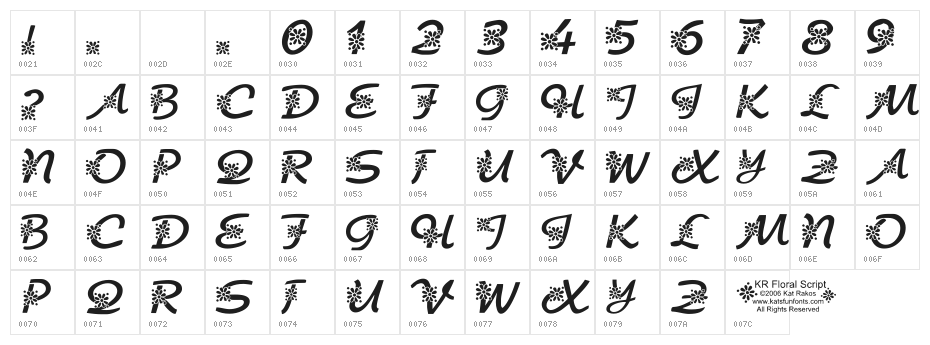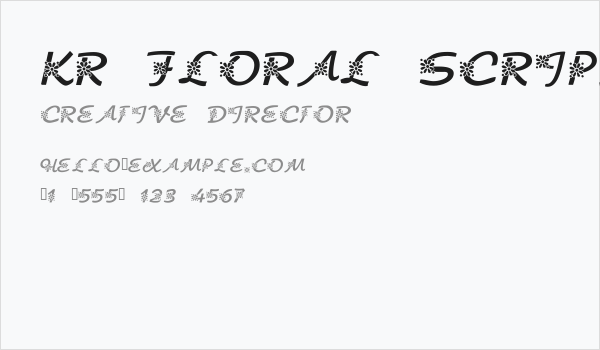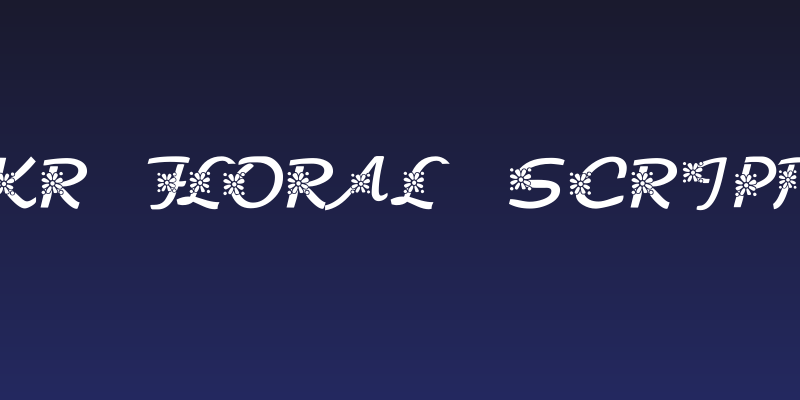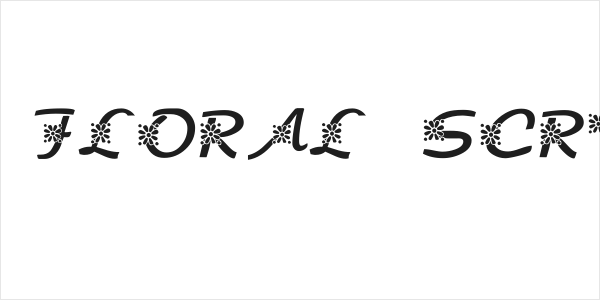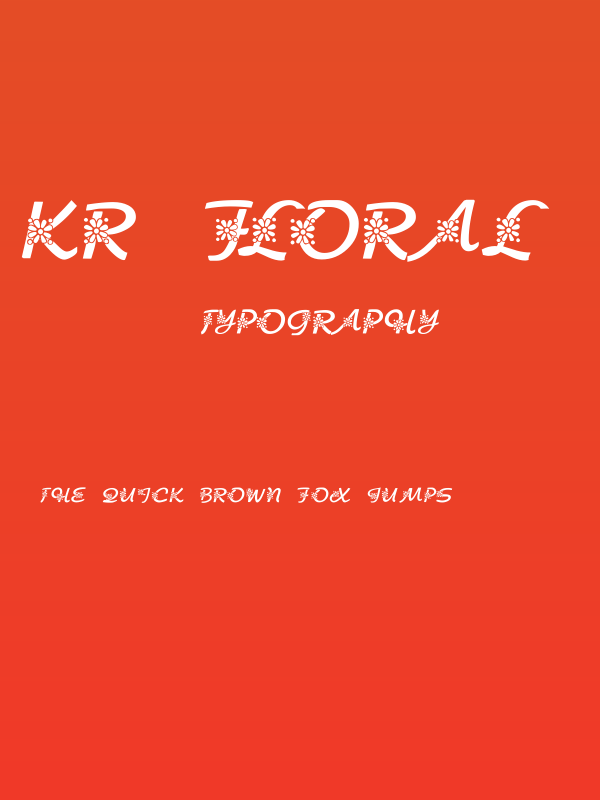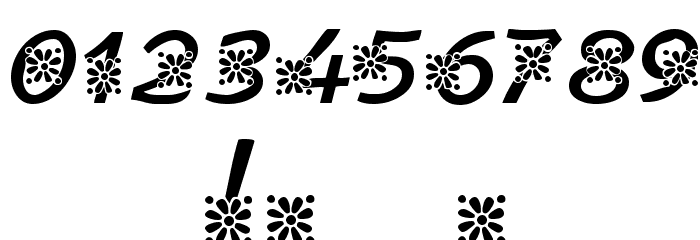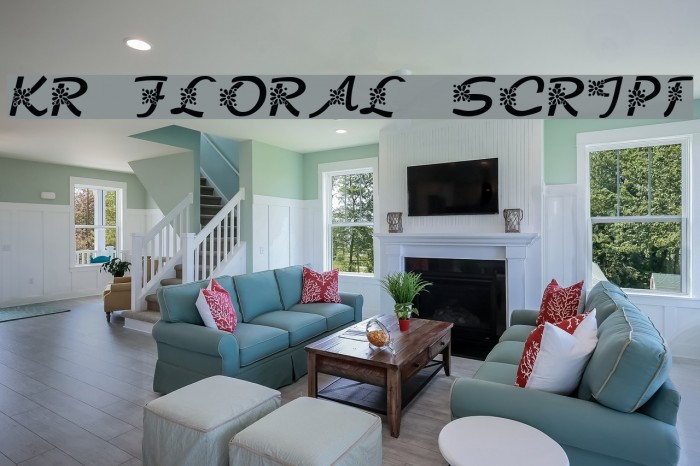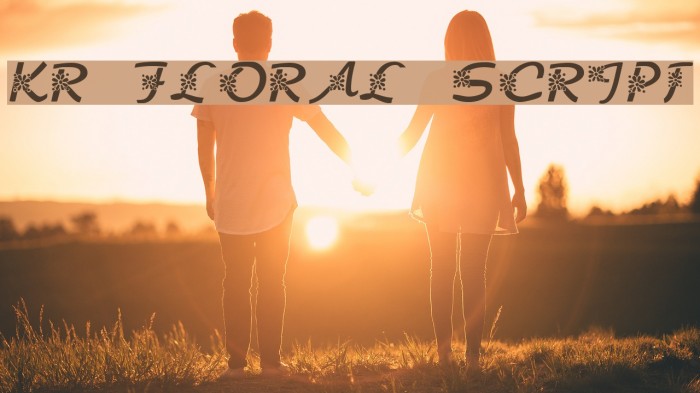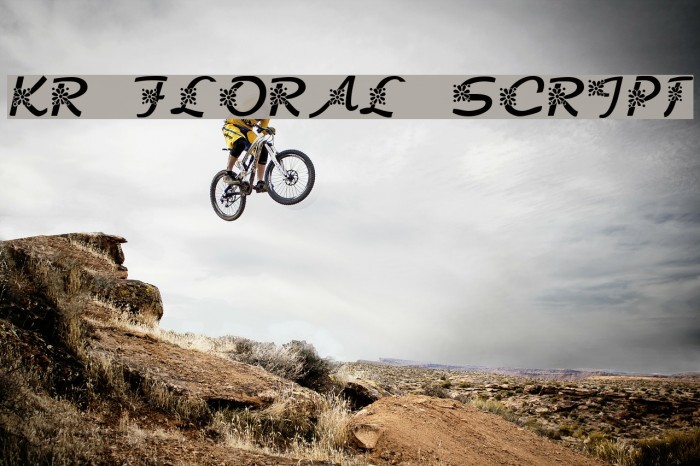
KR Floral Script Font
KR Floral Script Description
This font features an elegant script style with a unique floral pattern integrated into each character. The letters are gracefully curved, with decorative floral elements that add a touch of whimsy and sophistication. The uppercase and lowercase letters maintain a consistent style, with the floral motifs providing a cohesive and artistic appearance. Numbers and special characters are also adorned with floral designs, making this font ideal for creative and decorative purposes. The overall design is both playful and refined, suitable for projects that require a touch of elegance and creativity.
| Use Case | Logos, Invitations, Decorative Text |
| Proposed Projects | Ideal for wedding invitations, greeting cards, branding for floral shops, and decorative posters. |